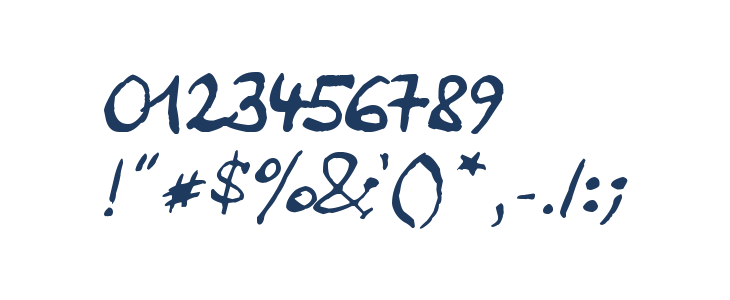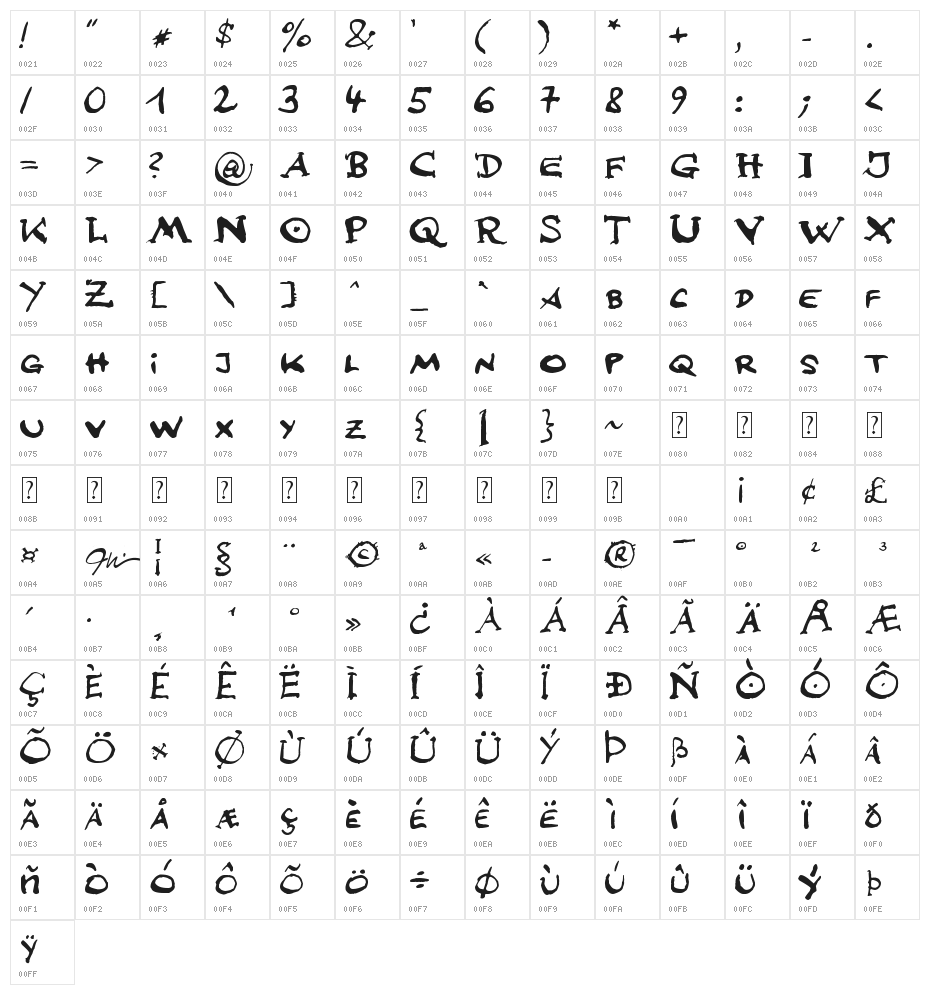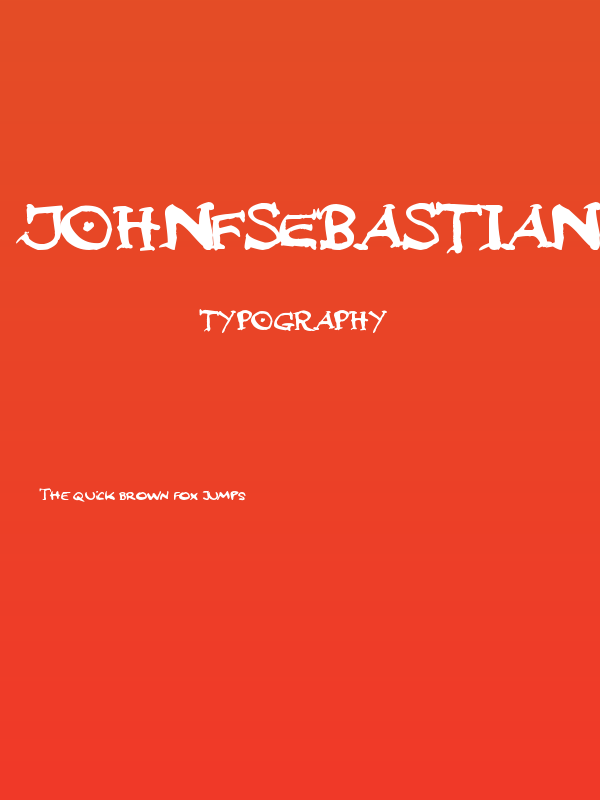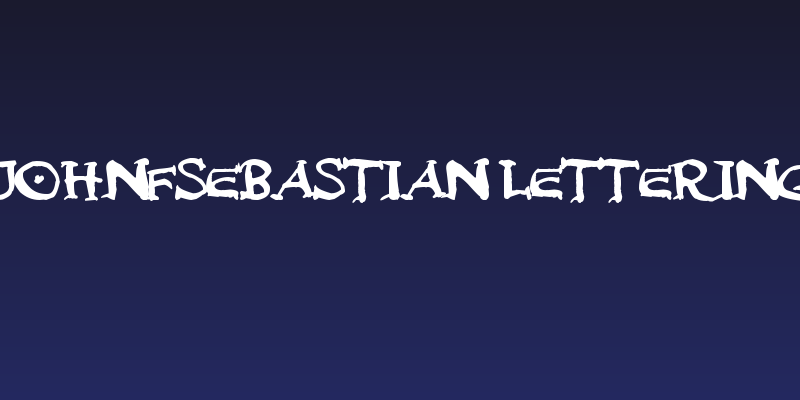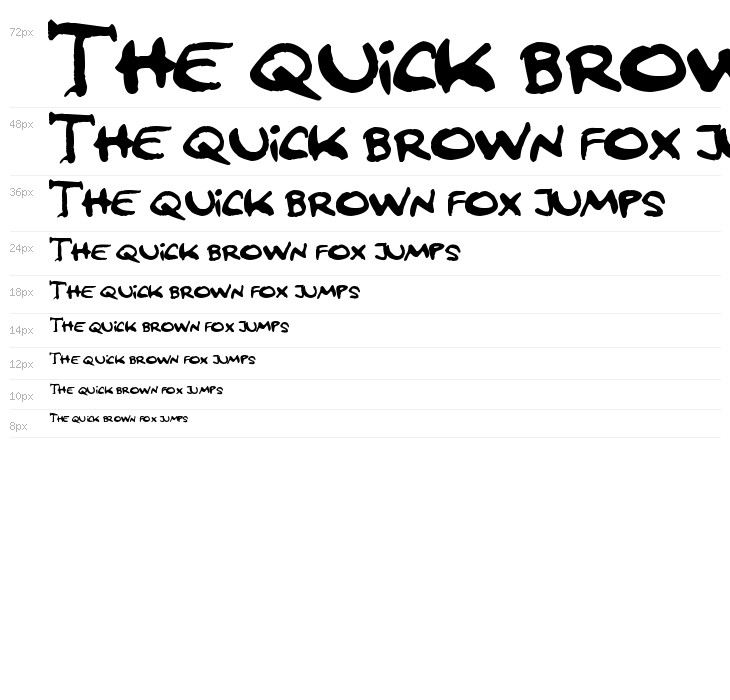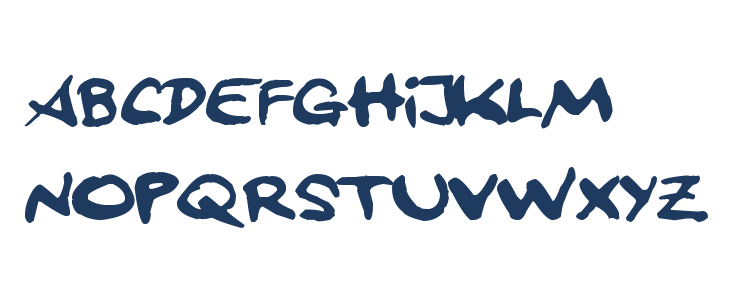
johnFsebastian Lettering Font
johnFsebastian Lettering Description
This font features a bold, expressive style with a hand-drawn appearance. The characters are irregular and dynamic, giving a sense of movement and energy. The strokes are thick and uneven, adding to the raw, artistic feel. The uppercase and lowercase letters maintain a consistent style, with exaggerated curves and angles that create a unique visual impact. Numbers and special characters follow the same design principles, ensuring a cohesive look across all elements. This font is ideal for projects that require a strong, artistic statement.